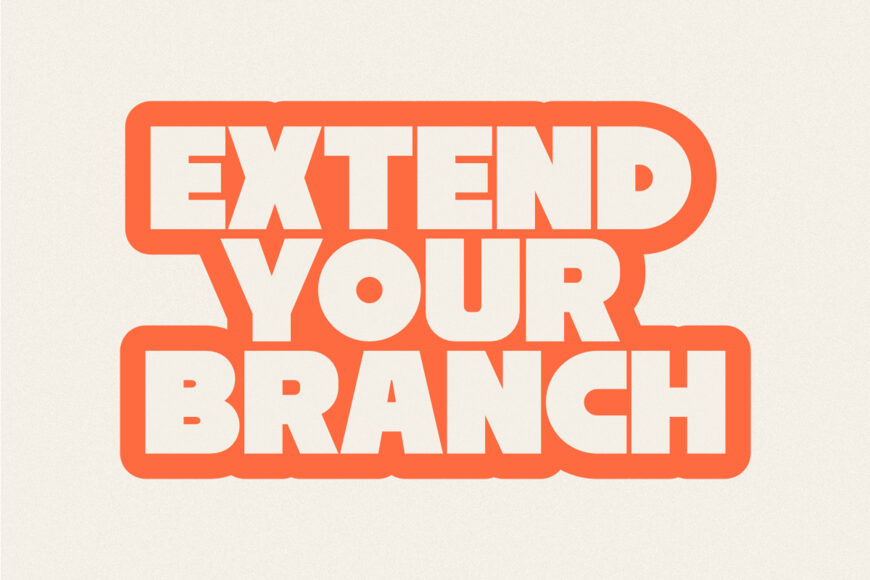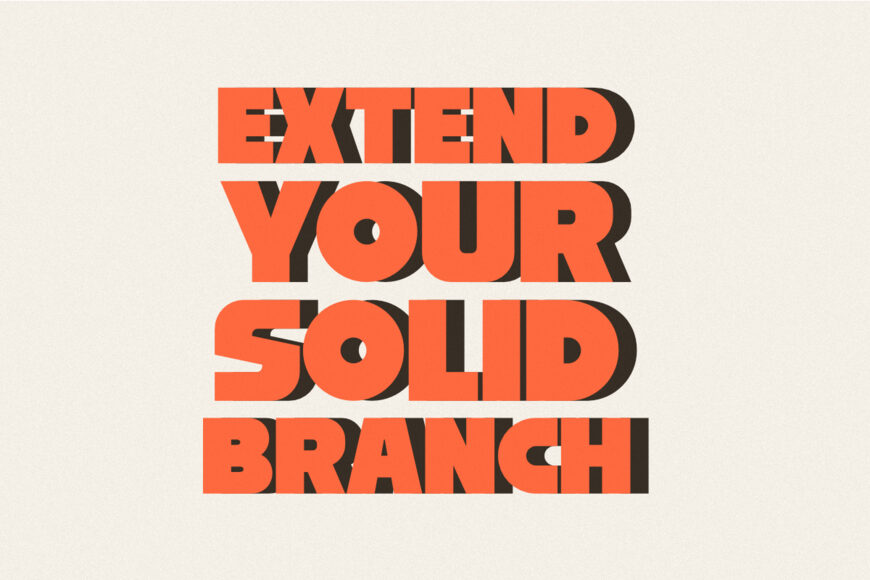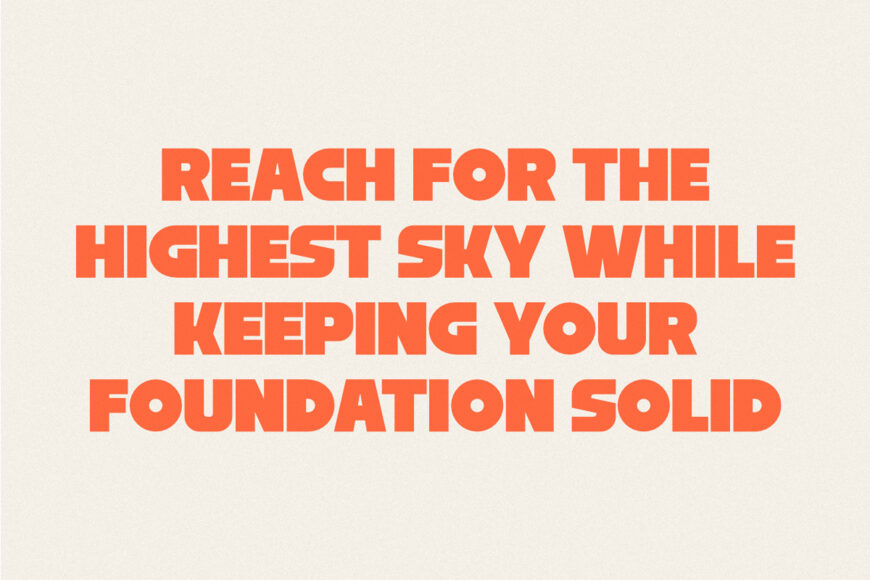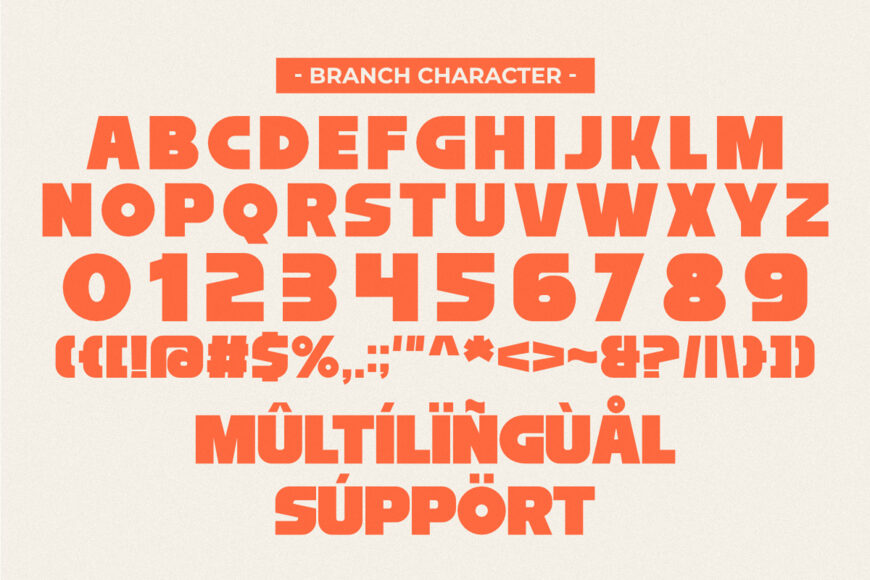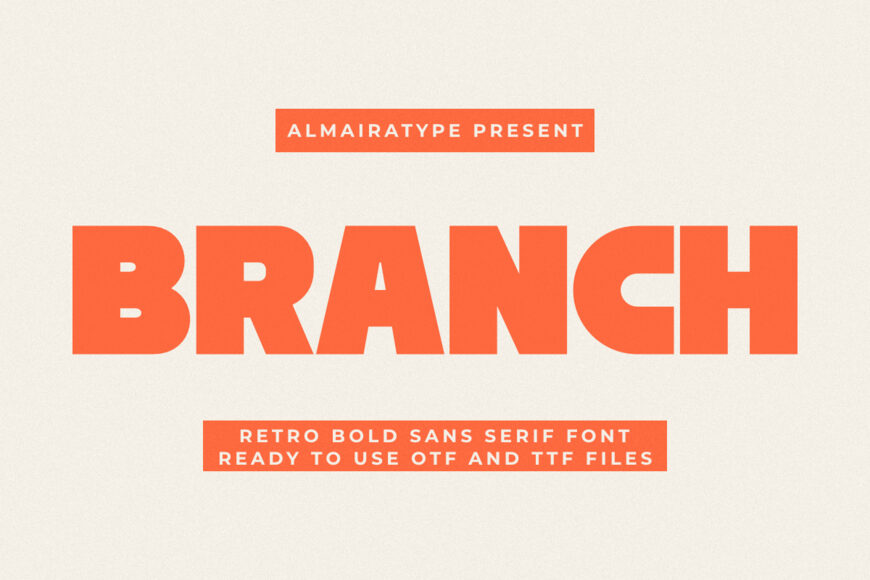
Branch Font
Branch is a bold retro sans serif font meticulously designed to bring a delightful vintage warmth and high-impact aesthetic to your modern creative projects.
Whether you are building an eye-catching brand identity, designing trendy varsity or streetwear t-shirt lines, customizing unique product packaging layouts, or producing striking social media posters, Branch ensures maximum readability and a distinct professional edge.
Designed by: Almairatype